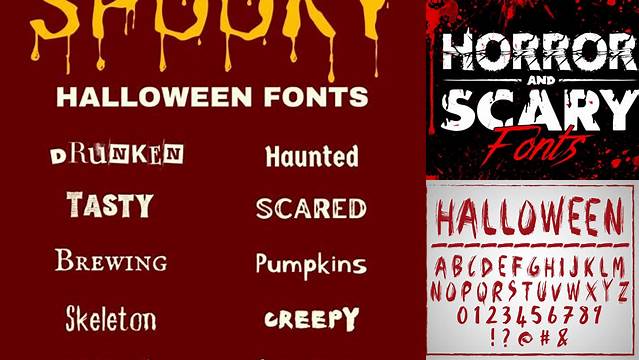
Free Scary Fonts: Copy & Paste For Spooky Designs
Hey guys! Are you looking to add some serious chills to your designs? Need that perfect font to make your Halloween invitations, horror movie posters, or spooky social media graphics stand out? Well, you've come to the right place! This article is your ultimate guide to scary fonts that you can easily copy and paste for free. We'll explore a variety of creepy typefaces, discuss where to find them, and give you tips on how to use them effectively to create maximum impact. Let's dive into the chilling world of fonts!
Understanding the Power of Scary Fonts
Scary fonts are more than just a stylistic choice; they're a powerful tool for conveying emotion and setting the mood. The right font can instantly transform a simple design into something truly terrifying, grabbing the viewer's attention and leaving a lasting impression. Think about it – what's the first thing that comes to mind when you see a movie poster with jagged, dripping letters? Or a Halloween invitation with a font that looks like it was written in blood? The font plays a crucial role in creating that initial feeling of fear, suspense, or unease. When selecting free scary fonts, it's essential to consider the specific message you want to convey and the overall tone of your project. A font that works perfectly for a haunted house advertisement might not be suitable for a children's Halloween party invitation. Different styles of scary fonts evoke different emotions, so it's important to choose wisely.
Consider the psychology behind font choices. Fonts with sharp, angular lines often convey a sense of danger and aggression, while fonts with rounded, distorted shapes can create a feeling of unease and creepiness. Fonts that mimic handwriting, especially if they appear shaky or uneven, can suggest instability or madness. The weight and thickness of the font also play a role; bold, heavy fonts can feel imposing and intimidating, while thin, wispy fonts might evoke a sense of fragility or vulnerability. Understanding these nuances will help you select the best scary fonts to achieve your desired effect. Furthermore, the context in which you use the font is just as important as the font itself. A scary font used sparingly and strategically can be incredibly effective, but overusing it can diminish its impact and make your design look cluttered or amateurish. Think about how the font interacts with other elements in your design, such as images, colors, and layout. A well-chosen font should complement these elements and enhance the overall message.
When exploring options for scary fonts, don't be afraid to experiment and try different combinations. Sometimes the most unexpected pairings can create the most striking results. However, always prioritize readability. A font that is too stylized or difficult to decipher will defeat its purpose, no matter how scary it looks. Make sure your text is legible, especially in smaller sizes. Consider using a simpler, more readable font for the body text of your design and reserving the scary font for headlines or titles. Remember, the goal is to create a sense of unease or fear, not to make your audience strain their eyes. By carefully considering these factors, you can harness the power of scary fonts to create truly memorable and impactful designs. So, whether you're designing a spine-chilling poster, a spooky invitation, or a creepy social media post, the right font will be your secret weapon in setting the perfect mood.
Where to Find Free Scary Fonts for Copy and Paste
Another excellent resource is DaFont, which boasts a massive library of fonts contributed by designers from around the world. You can easily search for scary fonts using keywords like "horror," "creepy," "Halloween," or "gothic." DaFont also allows you to preview the font with your own text, so you can see exactly how it will look in your project. FontSpace is another similar platform with a vast selection of free fonts, including a dedicated section for scary and horror-themed typefaces. Like DaFont, FontSpace lets you preview fonts and provides information about their licensing. For more curated collections, check out websites like 1001 Fonts and Font Squirrel. These sites often feature handpicked selections of high-quality free fonts, making it easier to discover hidden gems. Font Squirrel is particularly known for its selection of fonts that are licensed for commercial use, so it's a great option if you're working on a professional project.
Top Scary Fonts and How to Use Them
Okay, let's get into the fun part – exploring some top-notch scary fonts and figuring out how to use them effectively! There's a whole spectrum of spooky styles out there, from grungy and distressed to elegant and gothic. The key is to choose fonts that match the specific mood and message you're trying to convey. We'll look at a few popular categories of scary fonts and give you examples of fonts that fall into each category. We'll also chat about how to use them in your designs to achieve maximum impact. First up, we have dripping fonts. These fonts look like they're literally dripping with blood or some other viscous substance, making them perfect for horror movie posters, Halloween party invitations, and anything that needs a touch of gore. Fonts like "Bloodlust" and "Fright Night" are classic examples of this style. Use them sparingly for headlines and titles, as they can be a bit overwhelming for body text.
Next, let's talk about distressed fonts. These fonts have a rough, textured appearance, as if they've been through a lot of wear and tear. They're great for creating a sense of decay, age, and unease. Fonts like "Grave Digger" and "Zombie Punks" fall into this category. Distressed fonts work well for projects that need a vintage or grungy feel, such as haunted house advertisements or retro horror designs. Then there are gothic fonts, which evoke a sense of elegance and darkness. These fonts often have ornate details and sharp, angular lines. Fonts like "Black Chancery" and "Nosferatu" are classic gothic choices. Gothic fonts are perfect for projects that need a touch of sophistication and mystery, such as Victorian-era horror designs or vampire-themed graphics. Handwritten fonts can also be incredibly scary, especially when they look shaky, uneven, or written in blood. Fonts like "Creepster" and "Amputa" are great examples of this style. Use them to create a sense of unease and instability, perfect for psychological thrillers or messages from the beyond.
Don't forget about horror movie-inspired fonts. These fonts often mimic the typography used in classic horror films, instantly creating a nostalgic and terrifying vibe. Fonts like "Friday 13" and "Psycho Type" are perfect for paying homage to your favorite scary movies. When using scary fonts, remember to consider the color palette and imagery you pair them with. Dark colors, such as black, red, and deep purple, will enhance the spooky feel. Images of haunted houses, skulls, bats, and other creepy elements can also help set the mood. Also, think about the overall composition of your design. A well-balanced layout will make your scary font stand out even more. Use negative space effectively and don't overcrowd your design with too many elements. Finally, remember that less is often more. A single, well-chosen scary font can be much more effective than using multiple fonts in a single design. Choose your fonts carefully and use them strategically to create a truly terrifying effect. With the right fonts and techniques, you can create designs that will haunt your audience's dreams.
Don't be afraid to experiment with different styles and combinations to find what works best for your project. Explore the websites and resources we've discussed, download some free fonts, and start playing around. Remember to consider the context of your design, use fonts sparingly, prioritize legibility, and have fun with it! With a little practice and creativity, you'll be crafting terrifyingly awesome designs in no time. So, what are you waiting for? Go ahead and dive into the world of scary fonts and create something truly spooky today! And hey, if you create something awesome, be sure to share it – we'd love to see what you come up with! Happy designing, and may your fonts be forever frightening!